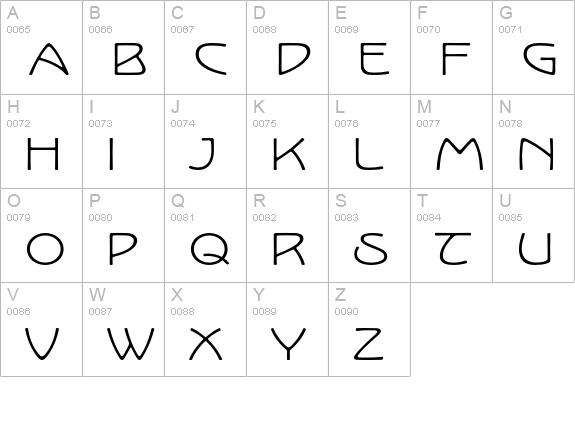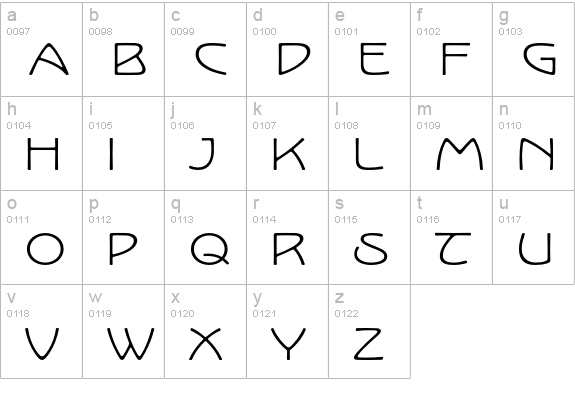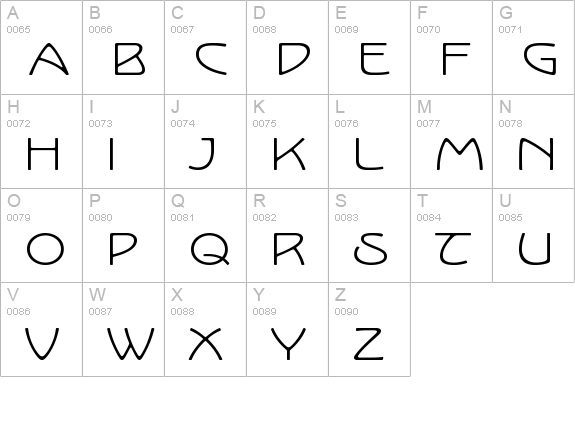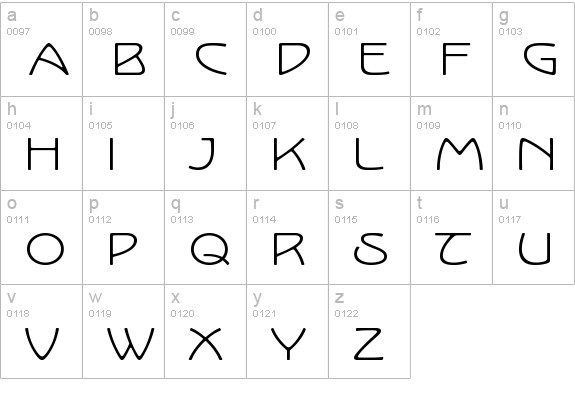
KoloWide Font Details
KoloWide font is a versatile and modern typeface that offers a perfect balance between elegance and readability. With its wide and bold characters, KoloWide font is ideal for making a bold statement in your designs. Whether you are creating posters, banners, or branding materials, this font will surely catch the eye of your audience. The best part about KoloWide font is that it is completely free to download at FontsMarket.com. You can easily access this font and use it for both personal and commercial projects without any restrictions. So why wait? Download KoloWide font today and elevate your designs with its unique and distinctive style.